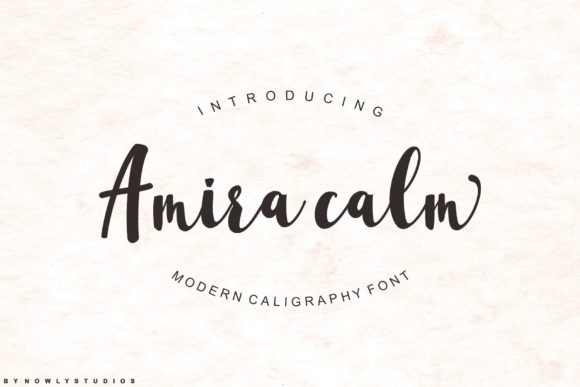
Amira Calm Font
Amira Calm Font is perfect for wellness center branding, meditation app interfaces, spa resort communications, mindfulness product packaging, yoga studio signage, holistic therapy materials, peaceful lifestyle marketing, and serene advertising campaigns. This tranquil typeface works beautifully in both digital applications and print media where inner peace and spiritual serenity are essential design elements.
What makes Amira Calm Font so exciting is its gentle interpretation of peaceful tranquility through flowing letterforms that seem to breathe with the natural rhythm of meditation and the soothing energy of mindful awareness. The font features graceful characters with serene proportions, peaceful curves, and harmonious details that create an immediate sense of calm and emotional balance. Its tranquil personality and spiritual inspiration make it ideal for brands seeking to communicate wellness, inner peace, and the transformative power of mindfulness while appealing to audiences seeking refuge from life's stresses and chaos.
The Amira Calm Font family includes multiple weight variations with different serenity levels, along with peaceful alternates and wellness ornamental elements. Each style maintains the typeface's tranquil character while offering comprehensive character sets including serene numerals, mindfulness-inspired punctuation marks, and special symbols designed to enhance wellness communications and peaceful branding efforts across various meditative contexts.
This extraordinary typeface represents the perfect marriage of spiritual wisdom and contemporary design functionality for wellness and lifestyle industries. Whether you're developing meditation center identities, creating wellness product campaigns, or designing mindfulness app interfaces, Amira Calm Font Free Download provides the peaceful energy and versatility needed to connect with wellness-focused audiences. The font's serene heritage makes it particularly effective for spa resorts, wellness centers, meditation teachers, and businesses celebrating the importance of mental health and spiritual well-being.
The carefully crafted peaceful details and optimized tranquil performance in Amira Calm Font ensure both spiritual authenticity and clear communication across all wellness applications. Its serene presence makes it perfect for peaceful branding, wellness marketing materials, and mindful communications where its full calming character can create lasting emotional connections with audiences seeking balance, tranquility, and the gentle path to inner peace.